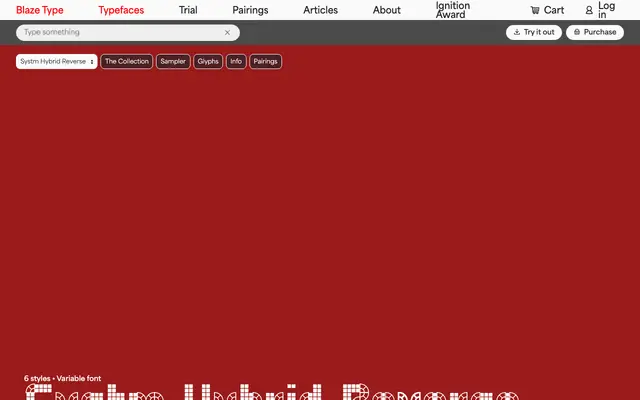
Systm Hybrid Reverse
A modular geometric subfamily of SYSTM, constructed from two elementary shapes on a grid and designed primarily as a visual identity tool.
Part of the larger SYSTM family by Simon Helmstetter, this subfamily is built entirely from a quadrant and a square, producing letterforms that reference Brutalist architecture and early interface design. Six weights run from Light to ExtraBold with a single variable axis controlling outline thickness, giving designers control over optical density across a wide range. With over 1000 glyphs and coverage for Latin European and Cyrillic scripts, it is pitched squarely at identity and branding work with a systematic, grid-driven sensibility.
Built from a quadrant and a square on a strict grid, Systm Hybrid Reverse is a modular geometric display face whose construction principles draw from Brutalist architecture and early interface design rather than traditional type classification.